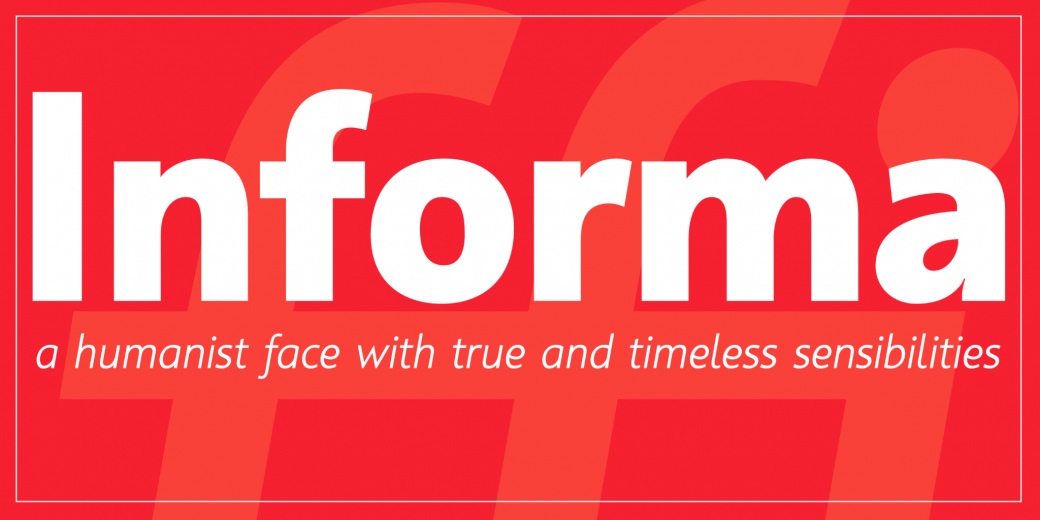
Informa Pro Font
Informa Pro Font is perfect for news media branding, professional journalism, information services marketing, corporate communications, educational publishing, data presentation graphics, technical documentation, and authoritative information systems.
What makes Informa Pro Font exciting is its informational authority that embodies journalistic integrity and professional communication excellence with systematic clarity and information design precision. The font features structured letterforms with editorial proportions and authoritative character that evoke newsrooms, information databases, and the reliable clarity of professional journalism and information delivery. Its distinctive informational styling and authoritative appeal communicate credibility, accuracy, and professional information excellence, making every message feel researched by experts and touched by the systematic precision of professional information design and journalistic integrity.
The Informa Pro Font family includes regular weight with uppercase and lowercase letters, numerals, punctuation marks, and comprehensive informational symbols. Premium versions often feature multiple weights and editorial alternates that provide complete typographic solutions for complex information and publishing applications.
The editorial character of Informa Pro Font makes it particularly valuable for news organizations, educational publishers, and professional information services. Its excellent readability ensures information content and editorial communications remain clear while maintaining the distinctive journalistic aesthetic that appeals to audiences seeking reliable information sources and professional editorial quality.
Media industry professionals appreciate how Informa Pro Font effortlessly conveys informational authenticity and editorial precision. The font's structured proportions and journalistic details create trustworthy media materials that establish confidence with audiences who value accurate information, editorial integrity, and the professional excellence of reliable information delivery and journalistic standards.
The versatile authority of this typeface extends to research institutions, information consulting, and educational media where informational authenticity enhances editorial credibility and professional appeal. Informa Pro Font Free Download provides creative professionals with an essential tool for developing memorable, information-driven designs that resonate with audiences who embrace journalistic excellence, information accuracy, and the systematic precision of professional information design in their media and educational experiences.